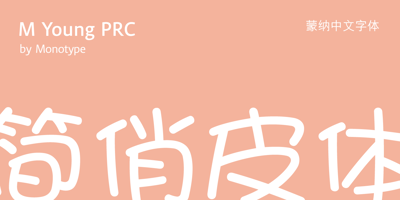
M Young PRC
M Young PRC font
M Young PRC Font Family was designed by Monotype HK Design and published by Monotype HK. M Young PRC contains 2 styles and family package options. M Young is a humanistic script design characterised by its modern, lively and youngster-like style. M Young incorporates features of the writings of felt-tip writing pen, its entry and finial points of strokes are rounded, parallel without flare. Contrast is low and the text is visible and eye-catching. It is best suited for casual and lively text, illustrations, set upright (non-slanted), non-condensed.